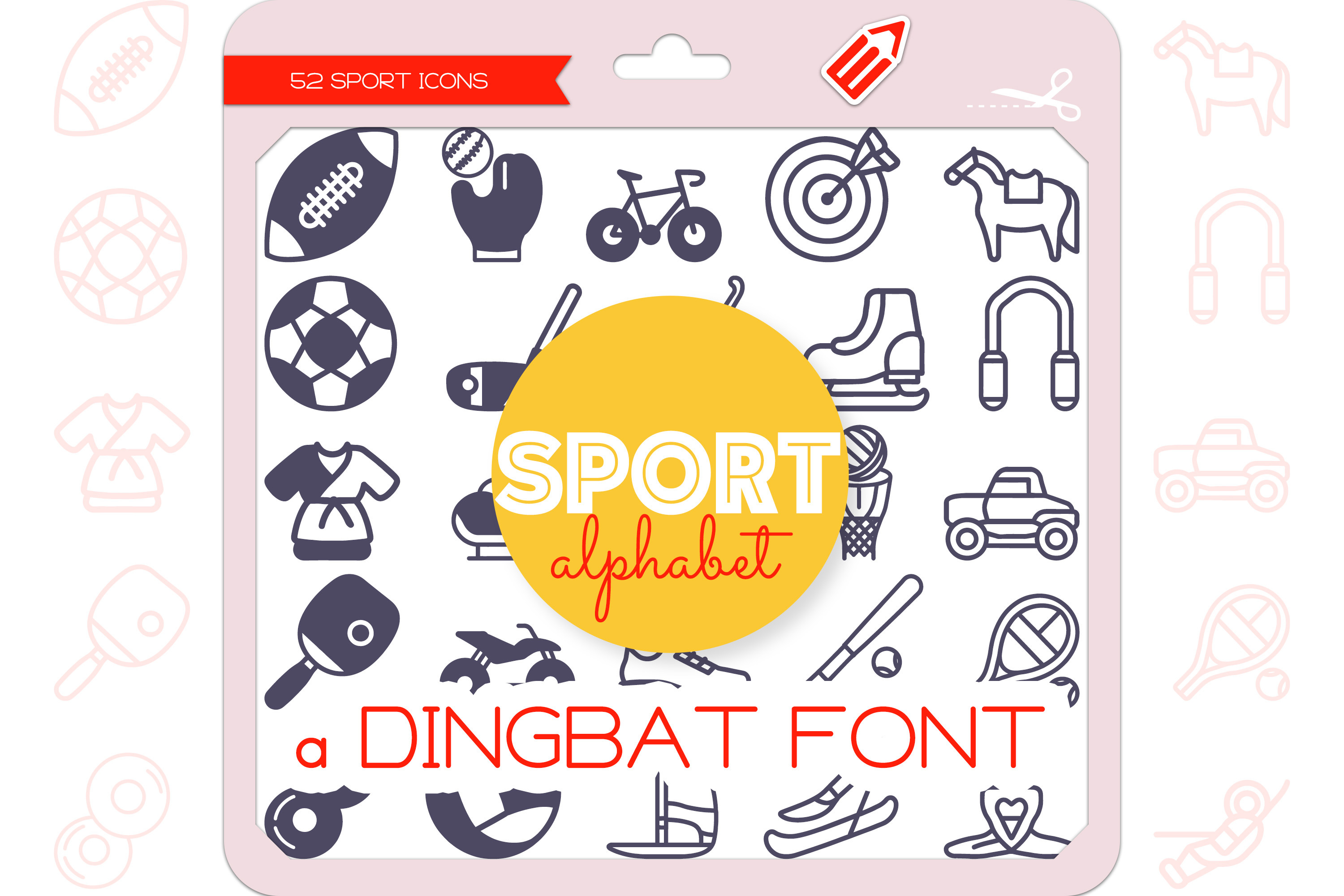
Sport Alphabet - Dingbat Font
Sport Alphabet is a unique and cute dingbat font, each Sport icon representing each letter of the alphabet from A to Z. It contains 52 icons in 2 styles (Outline & Filled-Outline). Add this font to your creative ideas and make your arts outstanding!
The Sport Alphabet Icons Dingbat Font featuring 26 A-Z things American Football, Baseball, Cycling, Darts, Equestrianism, Football, Golf, Hockey, Ice Skating, Jump Rope, Karate, Luge, Motocross, Netball, Off-roading, Ping Pong, Quad Bike, Running, Softball, Tennis, Ultimate Frisbee, Volleyball, Windsurfing, X-country Skiing, Yoga, Zip Line